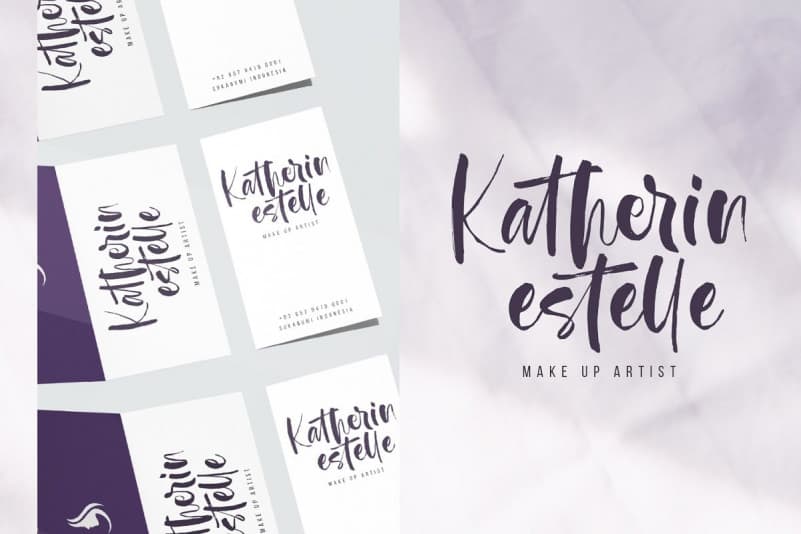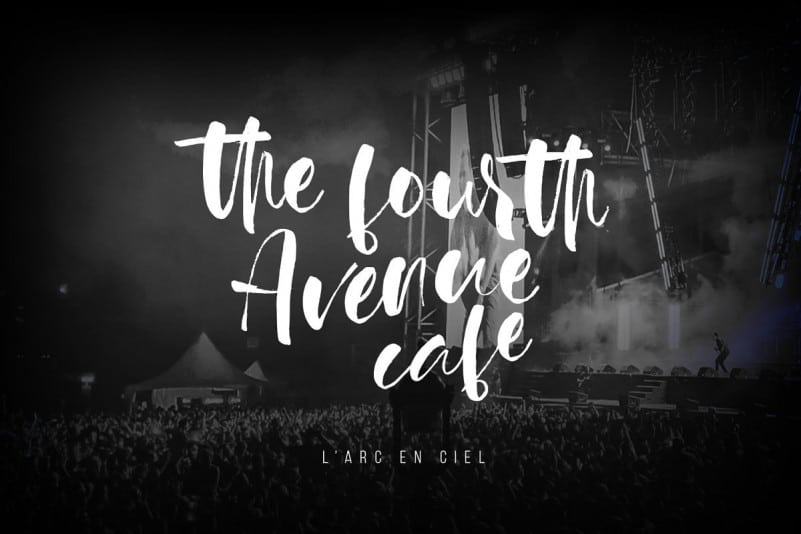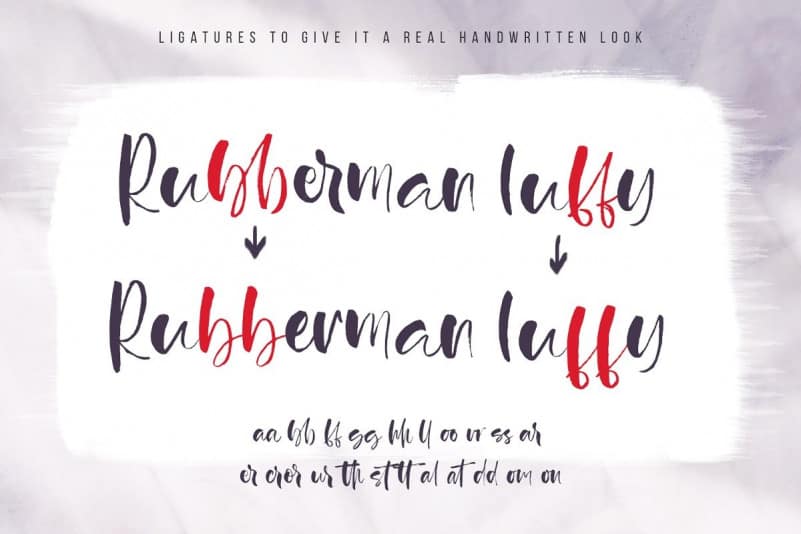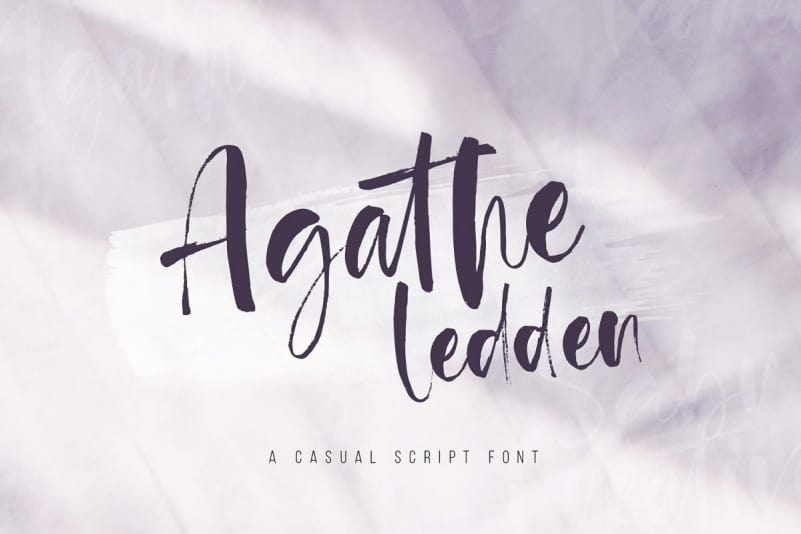
Agathe Ledden Script Font
Dear All. This a Brush effect Script font, can make your text appear elegant, luxurious, and modern! Agathe Ledden Font designed and shared by sabrcreative. Agathe Ledden Script is a natural style handwritten brush that looks natural. Having so many ligatures produces natural fonts that are very suitable for your various projects. It’s can be used for various types of needs of your project to suit your needs. With multilingual support, this font is also suitable to be combined with various design styles from various countries.